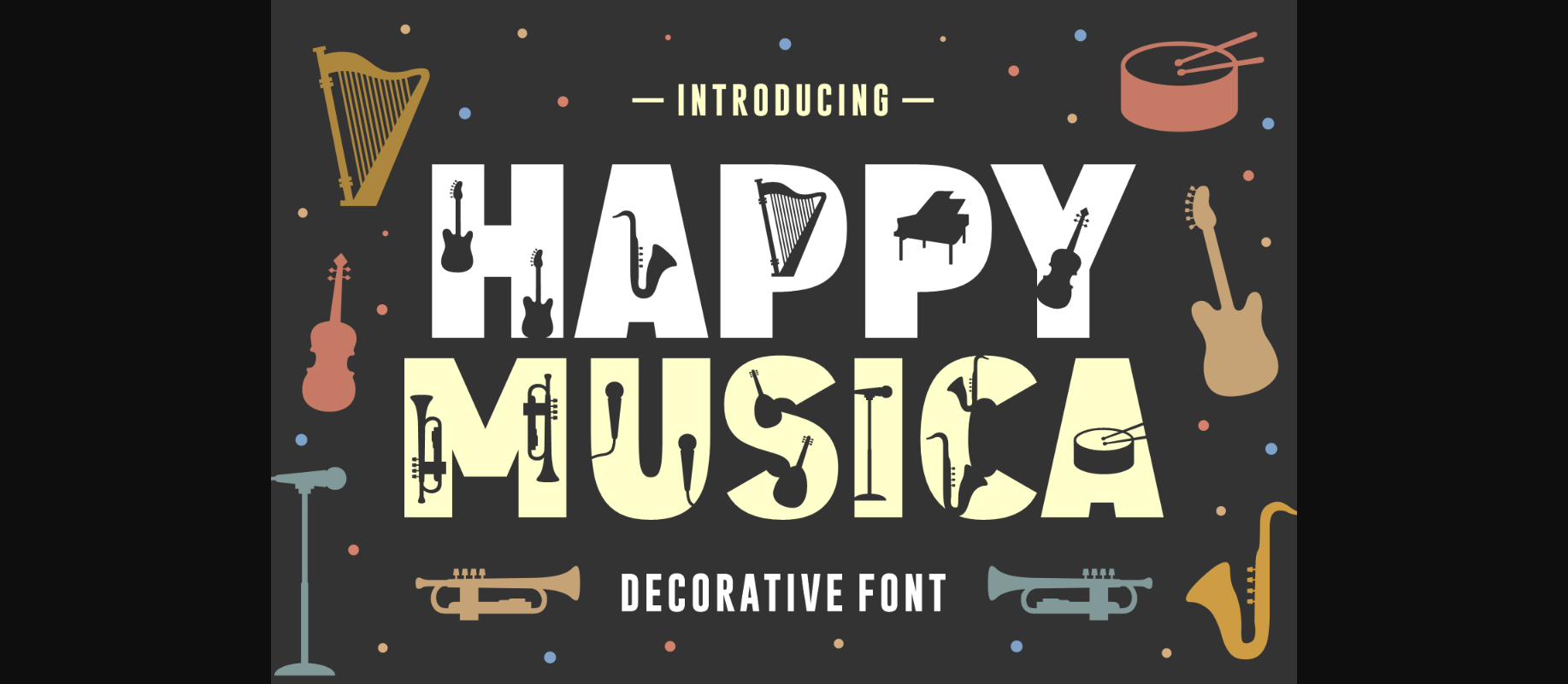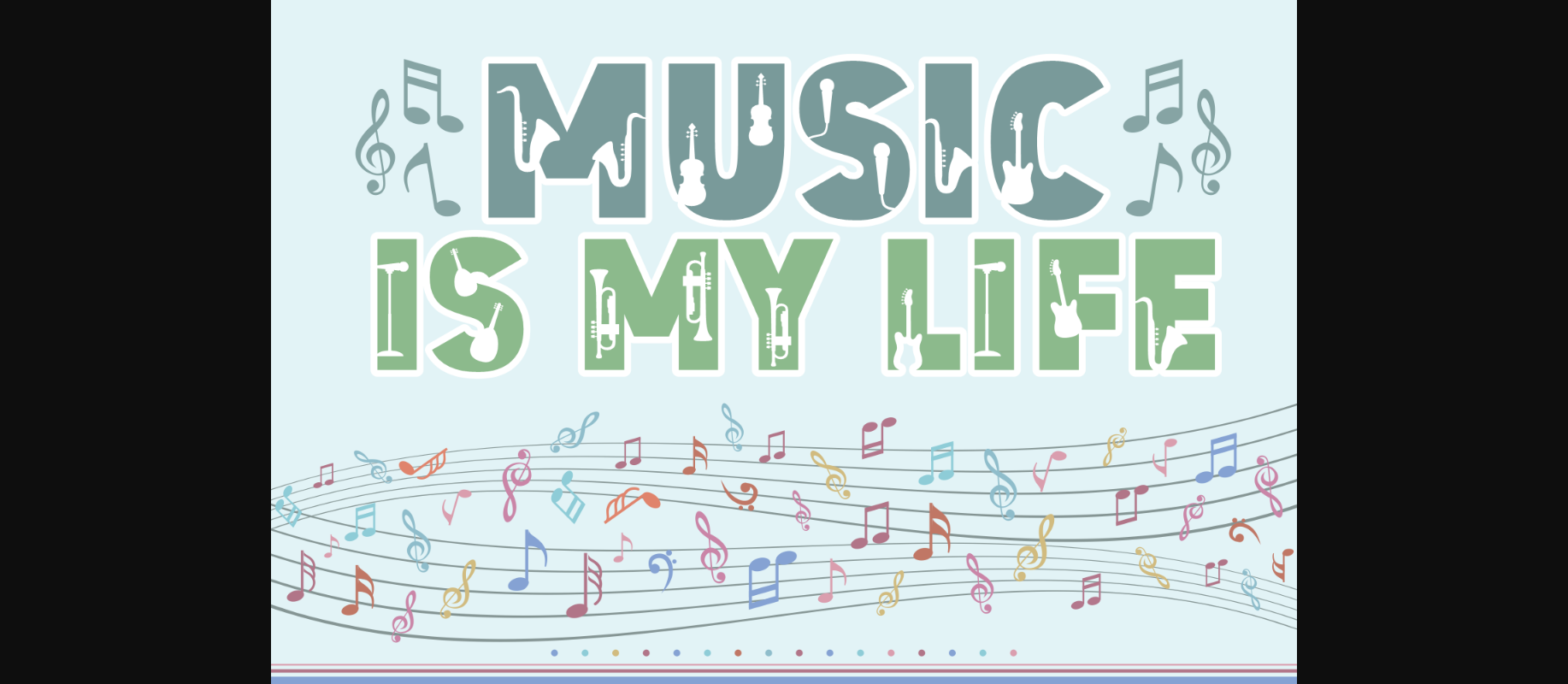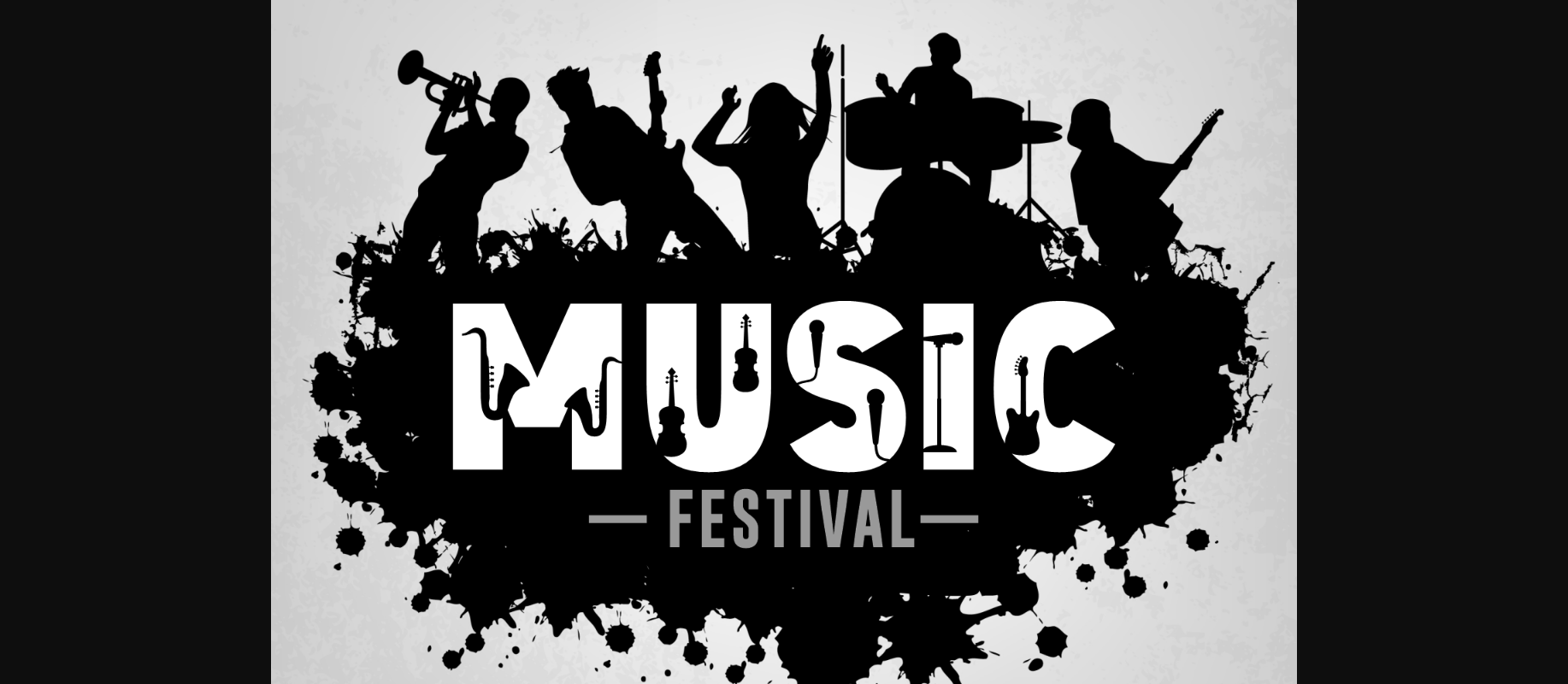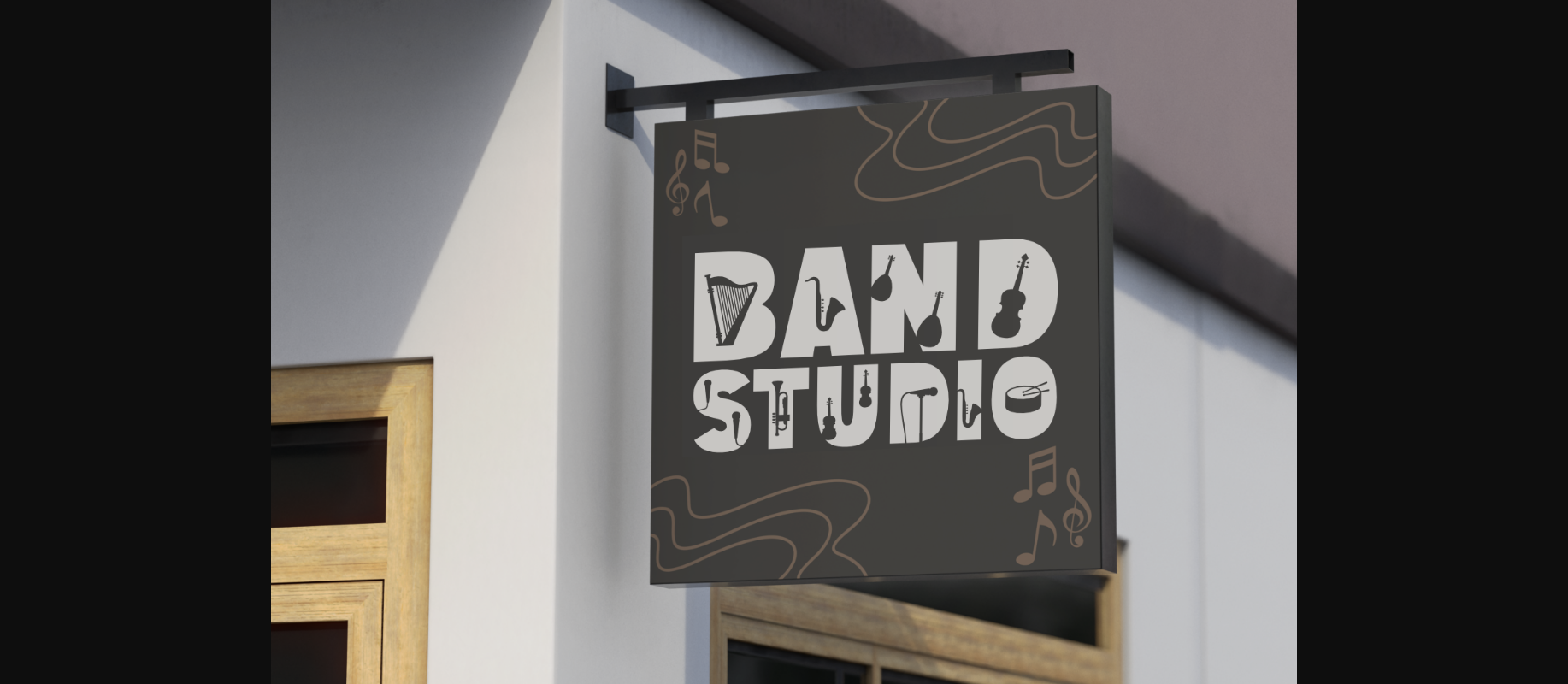
About Happy Musica Font
Happy Musica is a charming decorative font featuring bold characters decorated with musical instruments. Use this font to create a musical logo, branding material, business card, social media signature, etc.